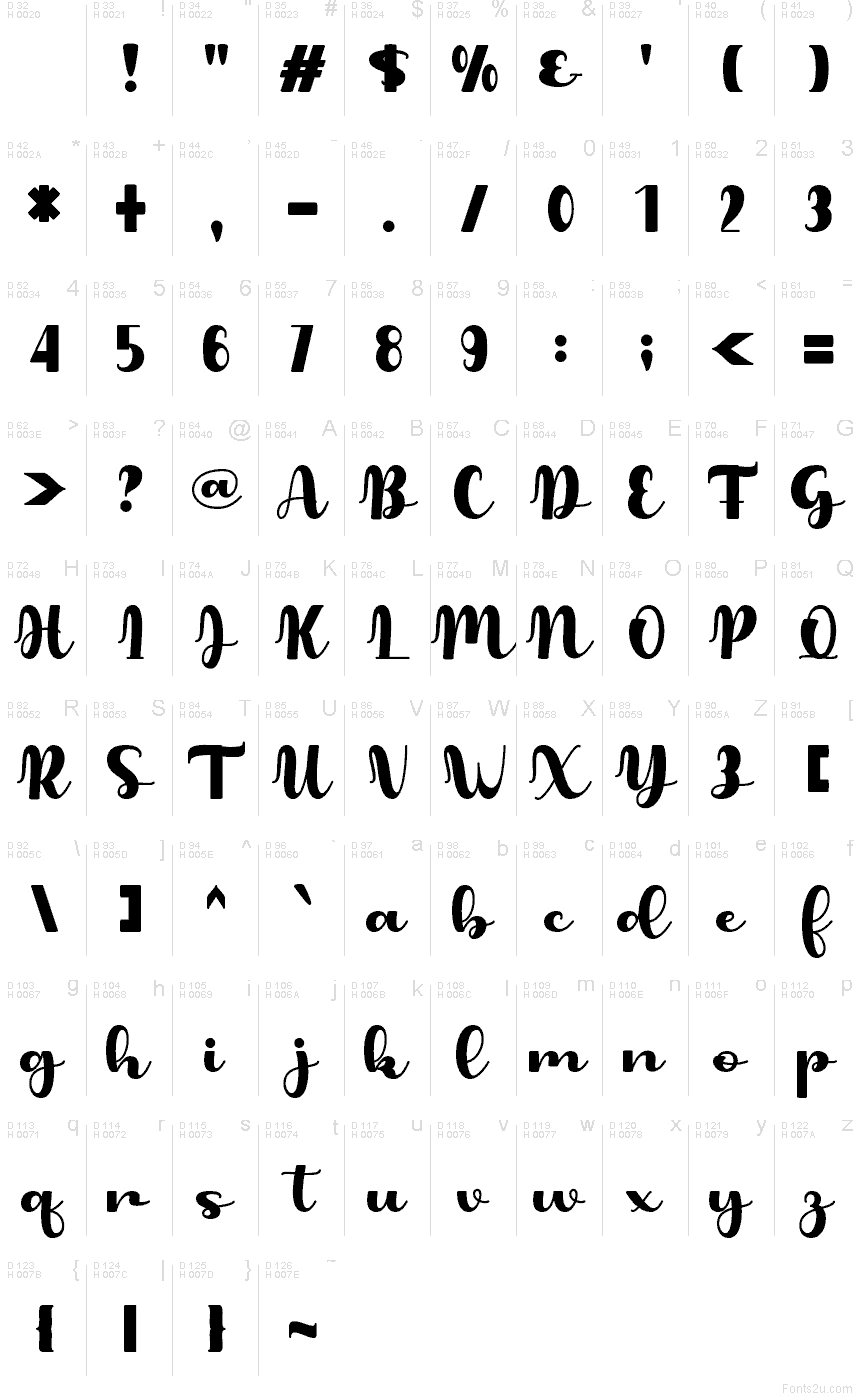
Margaretha
Margaretha font by Cavalera Creative is a free brush script typeface with a soft, inky flow that feels like it was written in one confident motion. Its rounded curves, generous loops, and even rhythm give it that cozy, handwritten warmth without looking messy or rushed. The strokes are bold enough to hold up at larger sizes, while the connected letters create a smooth, romantic texture that’s easy to read at a glance.
Using Margaretha, you get a friendly, modern script that shines on wedding invitations, boutique logos, bakery branding, product packaging, greeting cards, and social media quote graphics. This free font works beautifully when you pair it with a clean sans serif for body text, letting Margaretha handle the names, headlines, and key phrases. Keep it slightly oversized and well-spaced so those sweeping curves and lively connections really stand out.